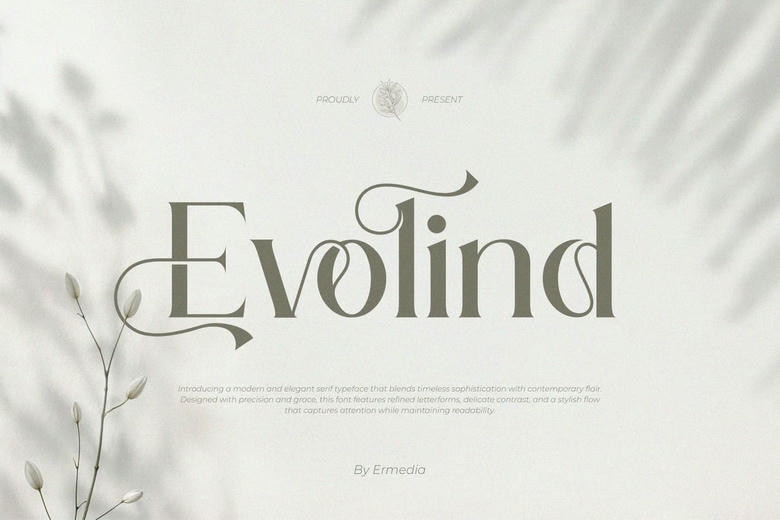
Evolind Font
Evolind Serif is a contemporary and classy font style to any brands and logo. It is a beautiful character which is a modern and elegant Serif font. The font can be used in invitation card design, a cool logo design, movie titles, and names, the business card, book title, brand names, and many more designs.
Evolind Serif is a round serif typeface which is sophisticated and of the moment. This font can be an ideal companion to any job because of its beautiful ligatures.